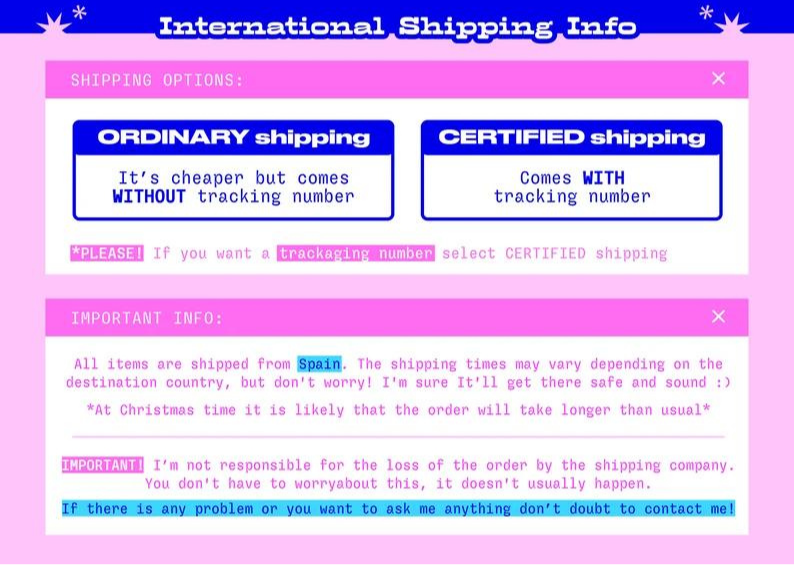
What's that font with such a distinctive "a" ?
Can you help me find the font used in this text? With such a unique lowercase a. It looks like a condensed sans serif font, really modern. Any ideas?
Where does the image come from?
This is from an Etsy profile, "blvrblvr"
So far, no luck with an ID. Here is a larger image with more detail:
I actually have all the Velvetyne fonts on my computer—I just hadn’t updated my own matching database in a while.
I found it through a Google search for “monospaced” and “inktrap.”